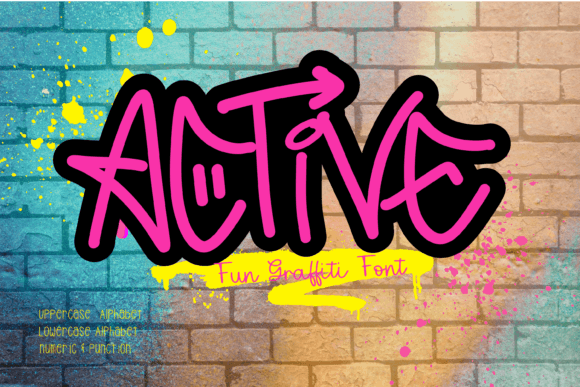
Get ready to turn heads with Active Font, the display font that's bursting with personality! Its playful curves and cheerful characters will bring a touch of whimsy to your designs, making them stand out from the crowd.
Picture this: your business cards radiating charm with Active Font. Its bold strokes and captivating style will command attention, leaving a lasting impression on potential clients. Or imagine your social media posts adorned with Active Font, grabbing followers' eyes and engaging them in your brand's story.
This font is not just another tool; it's an expression of your creativity. Unleash your imagination and let Active Font take your designs to new heights. With its infectious energy, each word you type will leap off the screen, captivating your audience and leaving them wanting more.
So why settle for ordinary when you can have extraordinary? Embrace the power of Active Font today and watch your designs transform into eye-catching masterpieces. Let this font ignite your creativity and elevate your brand to new levels of success.
With Active Font, you're not just downloading a font; you're investing in a playful, charming, and unforgettable way to connect with your audience. Join the typography revolution and let Active Font lead the way to design greatness!